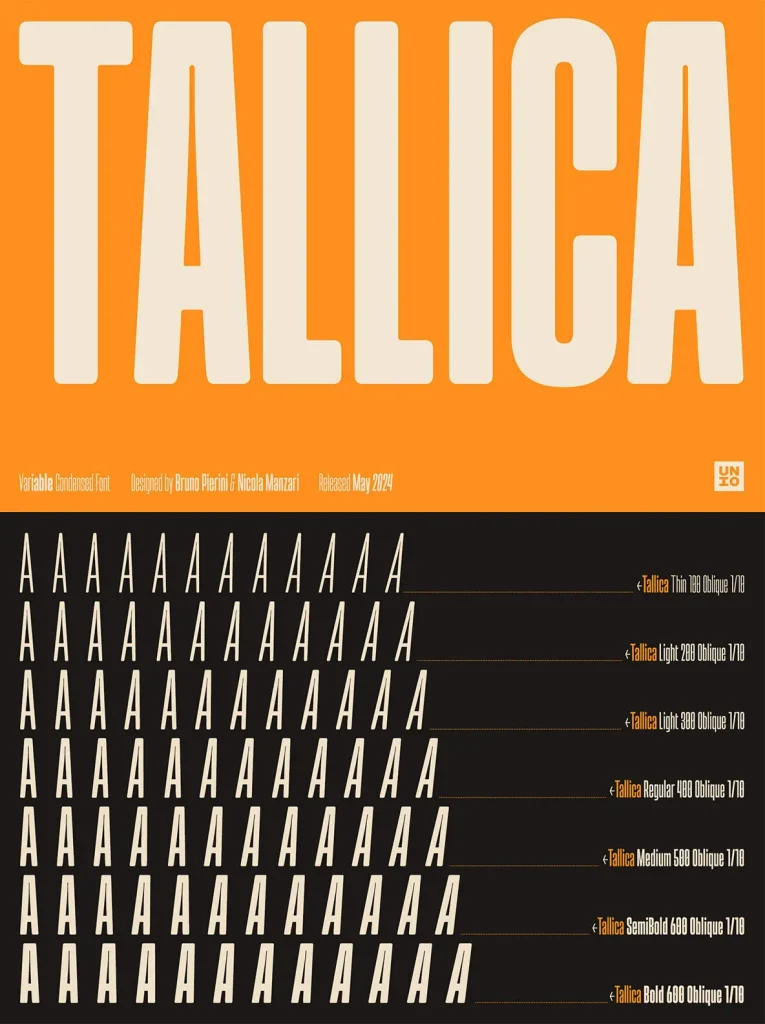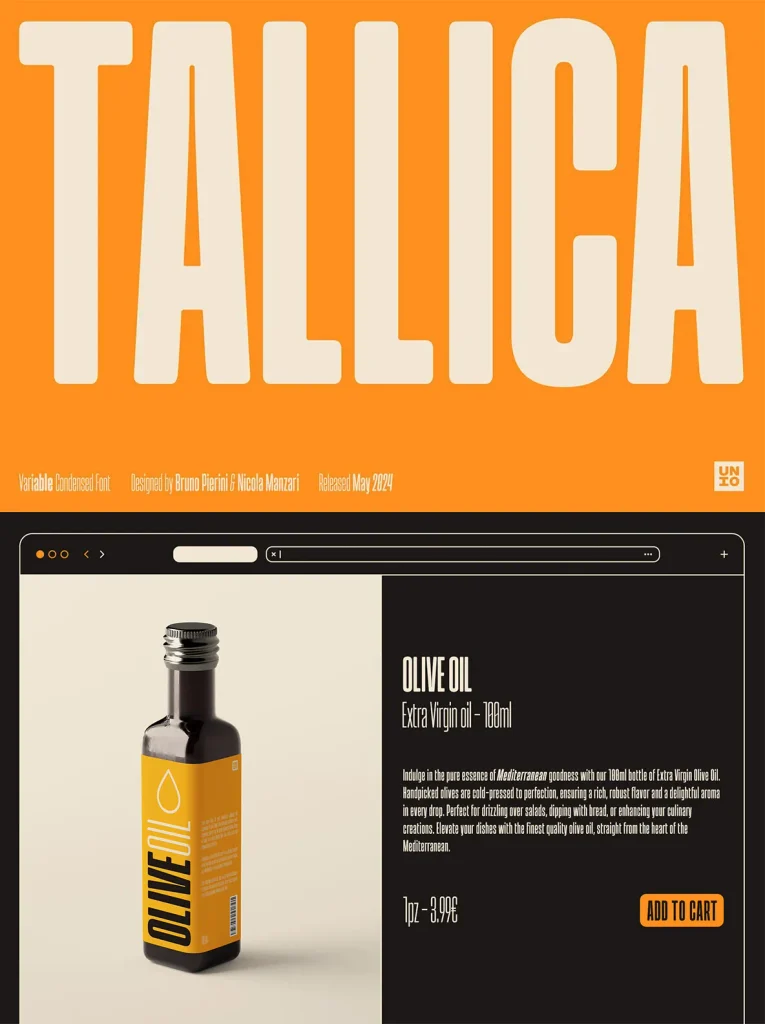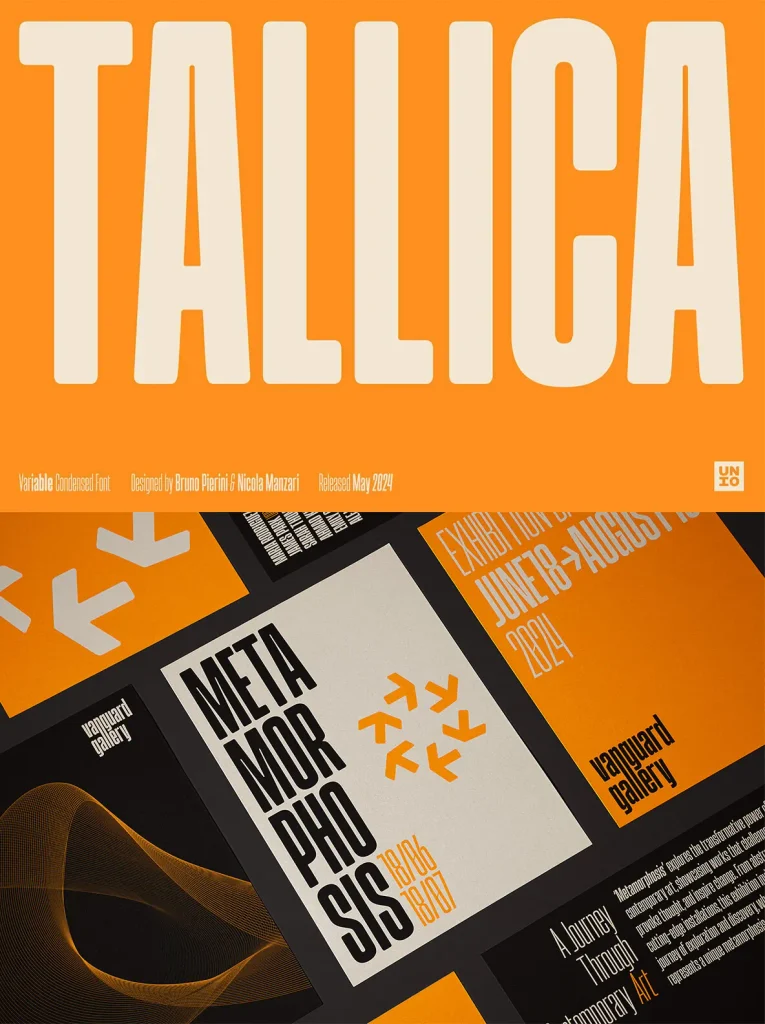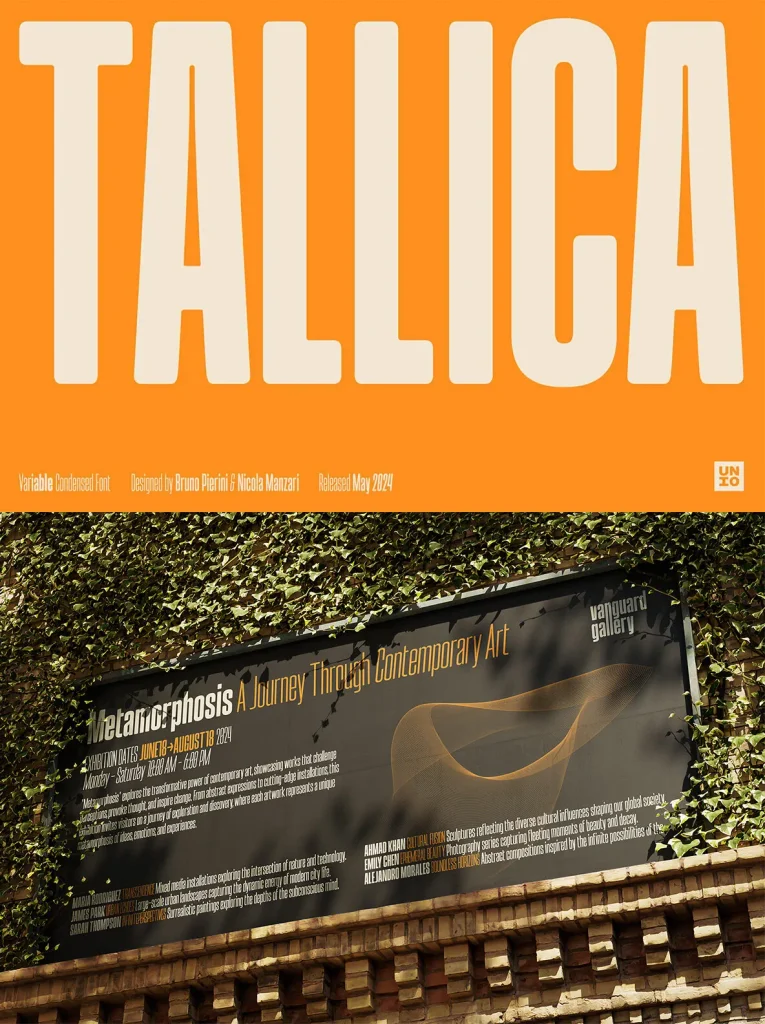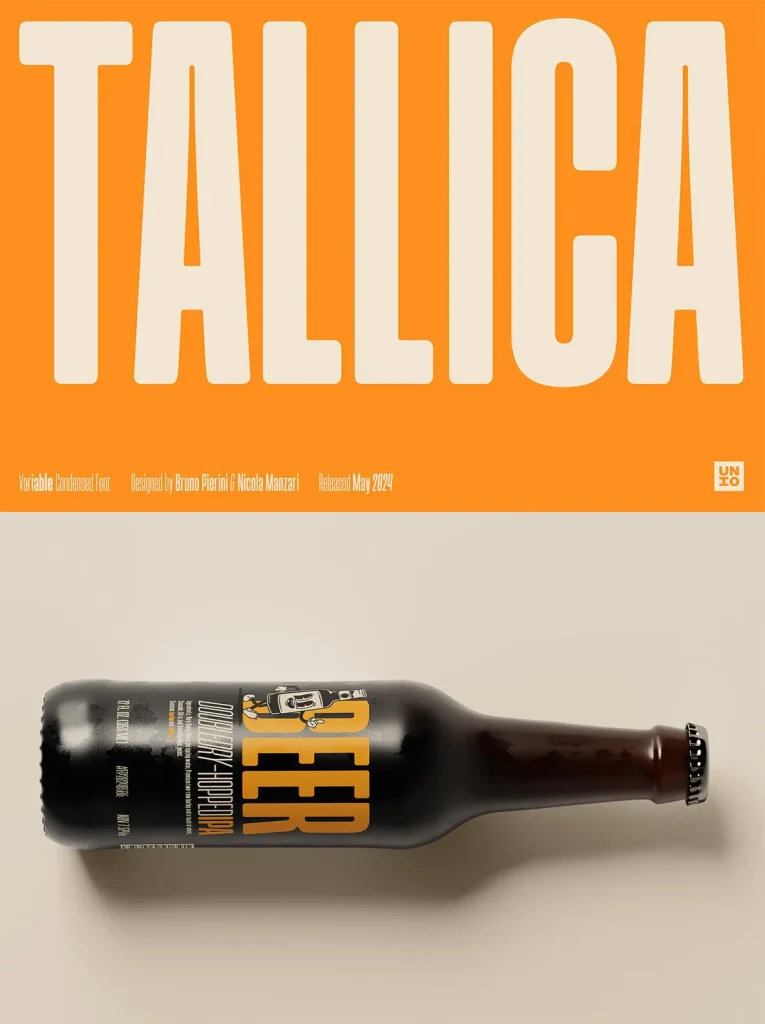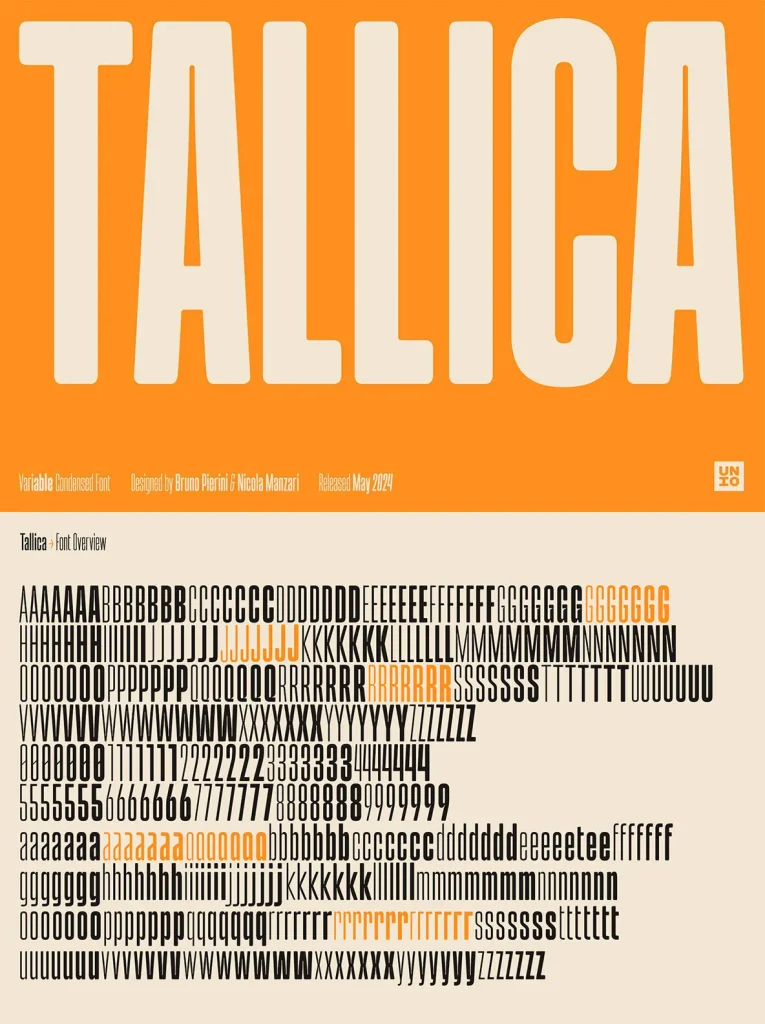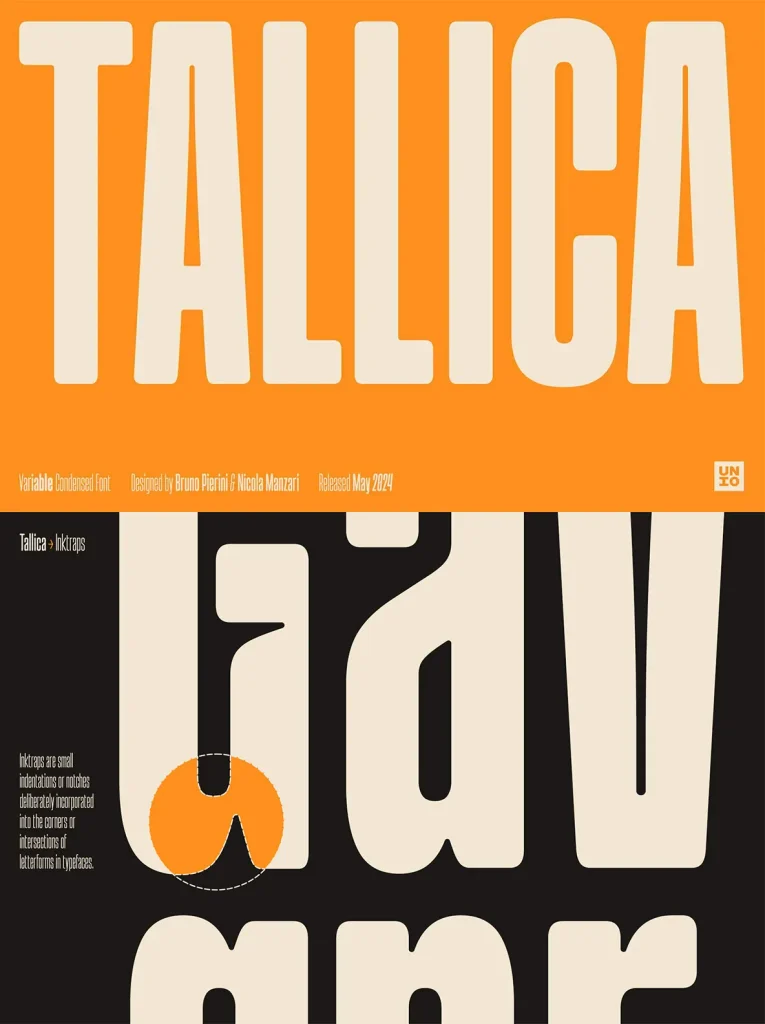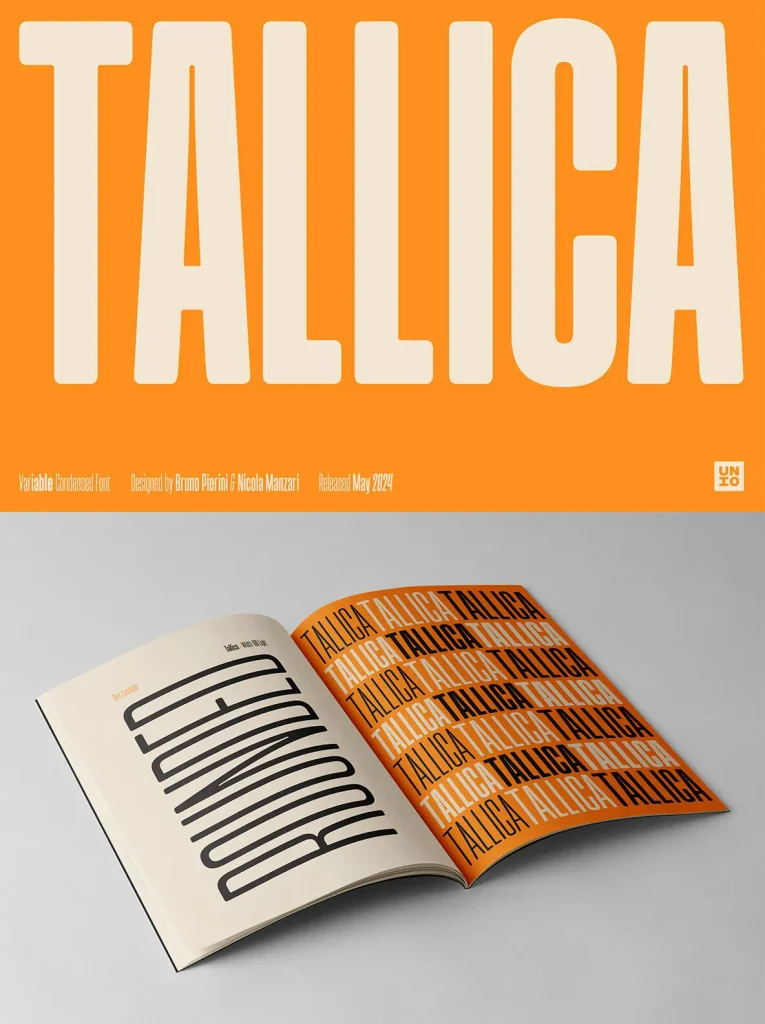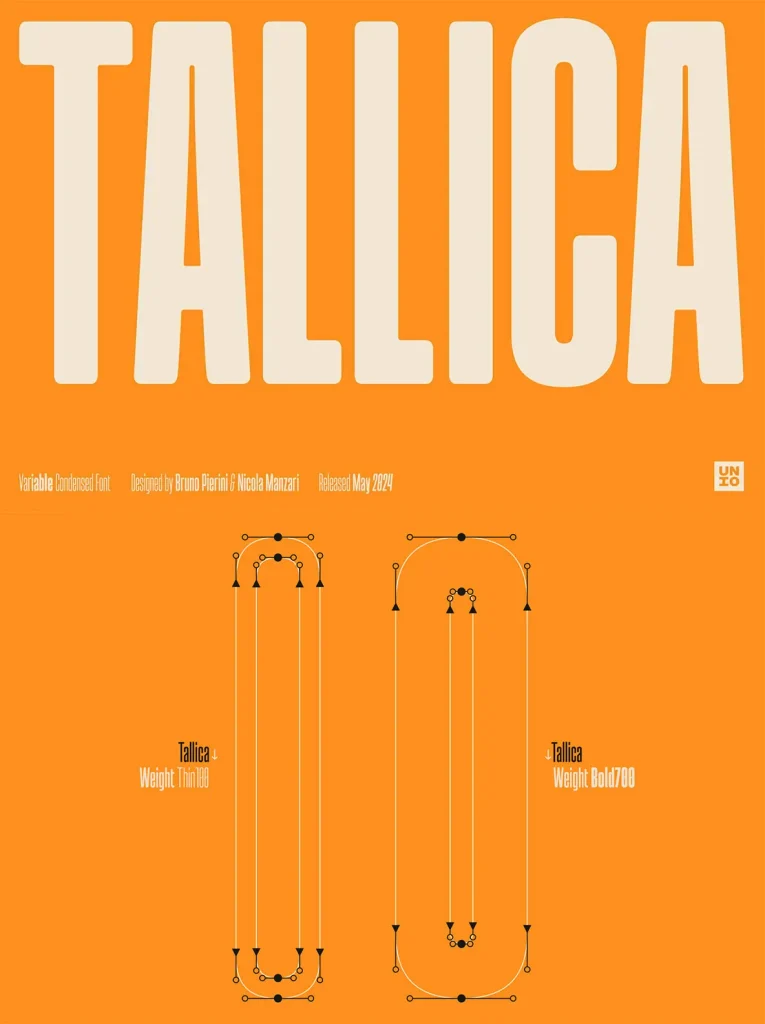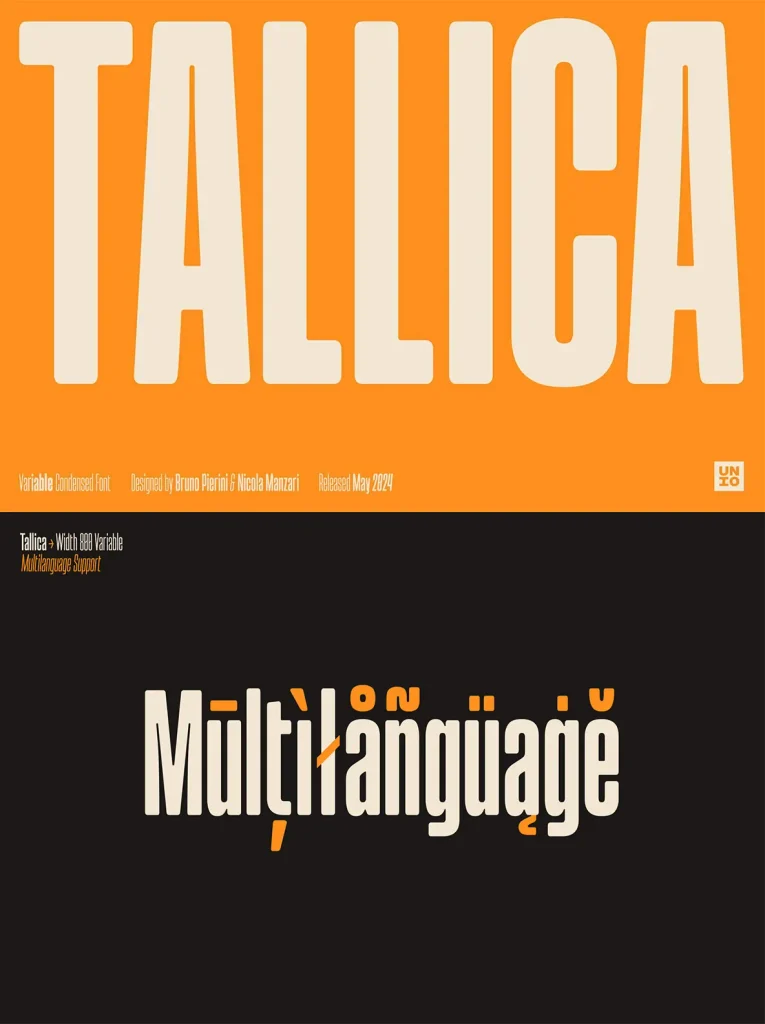
Tallica — Condensed Strength for Headlines
Tallica is an extra condensed grotesque typeface built for clarity when space is tight. Its tightly compressed letterforms and elevated x-height keep text readable while still carrying real weight on the page. From precise line spacing to nuanced ink traps with rounded corners, the design balances a contemporary tone with practical performance for impactful headlines, editorial layouts, and brand systems that need sharp visual distinction.
Tallica offers a full spectrum of weights through a variable font system that moves smoothly from Thin to Bold, with matching oblique styles. The structure stays coherent at any size, making it a reliable choice for logo design, packaging, and book covers where every millimeter matters. With 400 glyphs and broad language coverage, it supports multilingual typography across global projects without compromise.
Extra condensed design for maximum utility in confined layouts
High x-height supports consistent readability at every weight
Variable font: Thin to Bold with oblique counterparts
Refined ink traps with modernized, rounded corners
Suitable for headlines, logos, packaging, and editorial projects
400 glyphs with broad language coverage